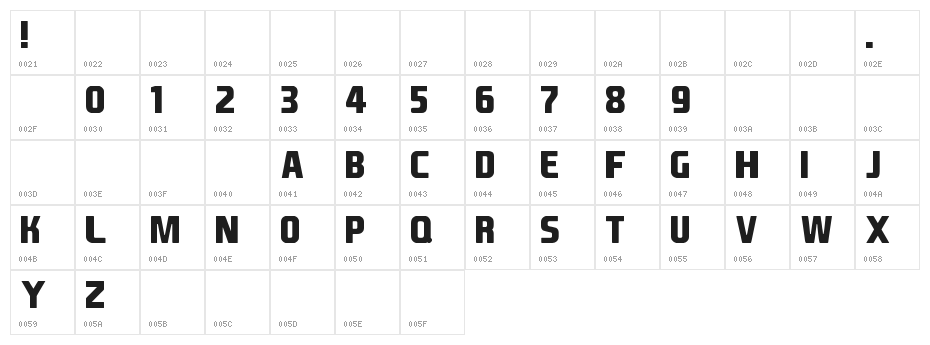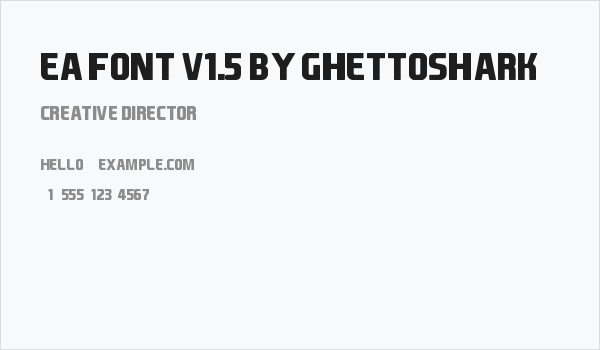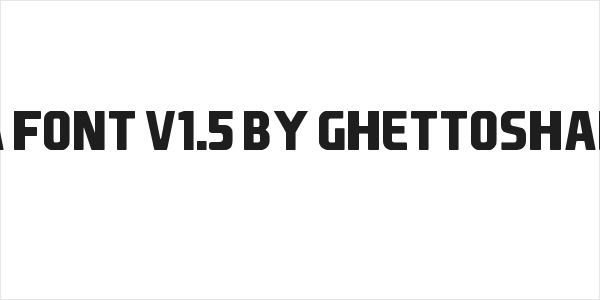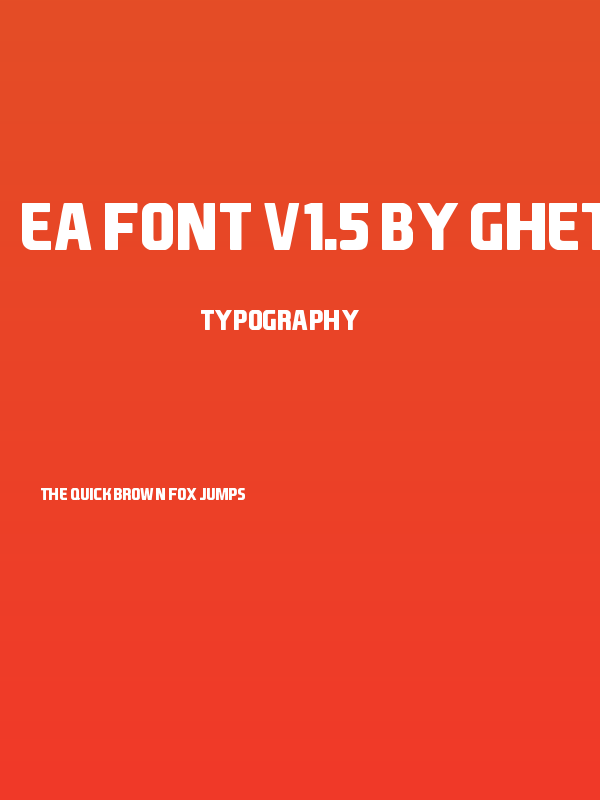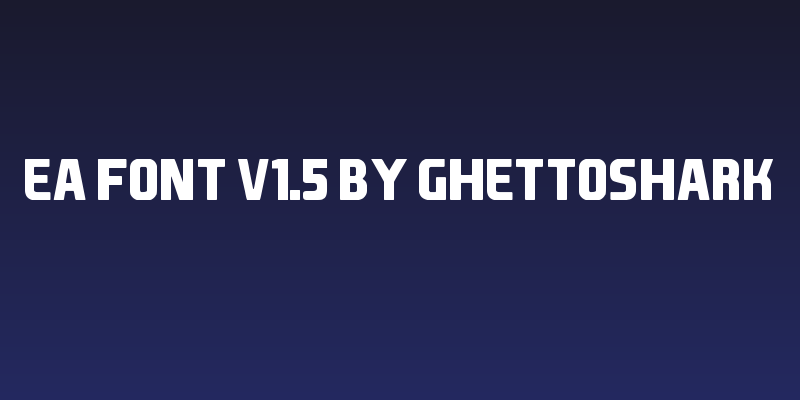
EA Font v1.5 by Ghettoshark Font
This font features bold, geometric letterforms with a strong presence. The characters are constructed with uniform stroke widths, giving them a solid and impactful appearance. The design is clean and modern, with a slight industrial feel, making it suitable for a variety of applications. The uppercase and lowercase letters maintain a consistent style, ensuring readability and visual harmony. The numerals are equally robust, matching the overall aesthetic of the alphabet. Special characters are included, providing versatility for different design needs.
Proposed ProjectsIdeal for branding, headlines, posters, and signage where a strong, modern impression is desired.